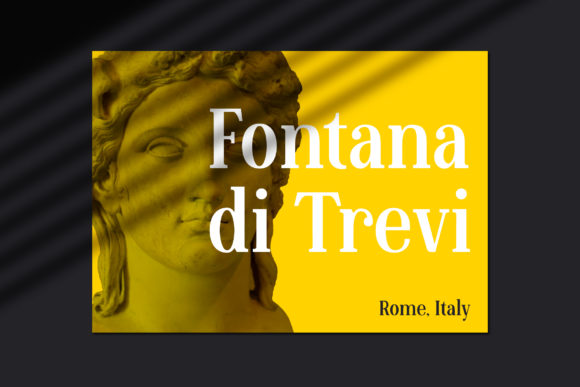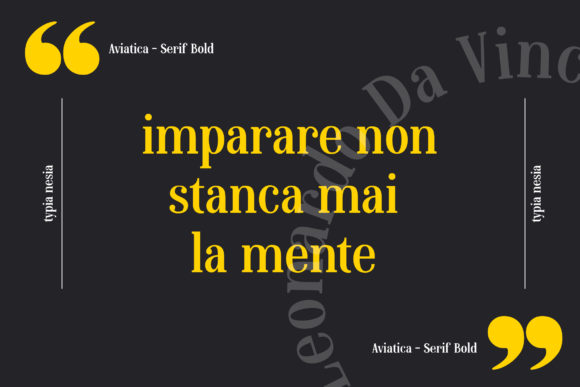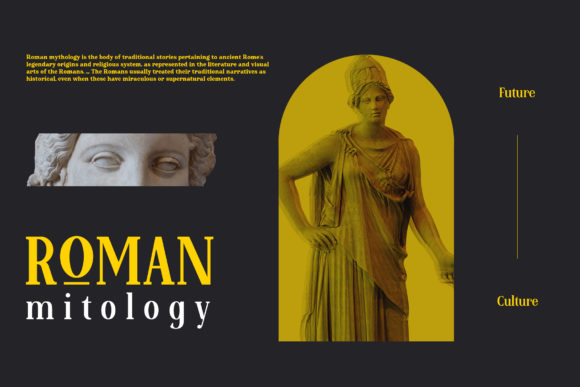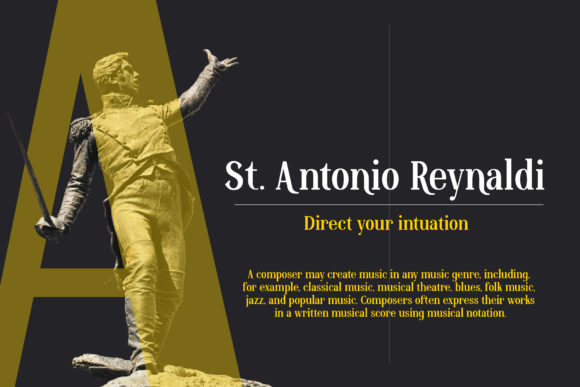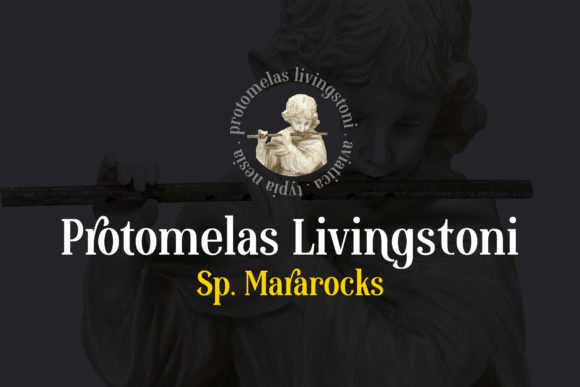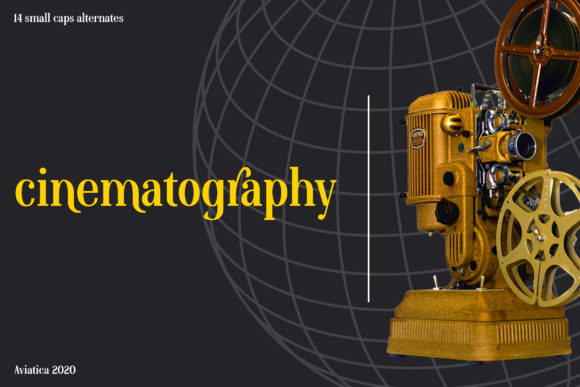
Aviatica Font: Elevate Your Designs with a Bold and Simple Lettered Serif
Are you tired of using the same old fonts in your designs? Look no further than Aviatica, a bold and simple lettered serif font that’s sure to make your creative projects stand out. With its versatility and wide range of applications, Aviatica is the perfect addition to any designer’s toolkit.
What is Aviatica Font?
Aviatica is a carefully crafted font that combines the elegance of serif fonts with the boldness of modern typography. Its simple yet distinctive design makes it easy to read and recognize, even at small sizes. Whether you’re working on a logo, poster, or website, Aviatica is the perfect choice for designers who want to make a statement.
Key Features of Aviatica Font
- Bold and Simple Design: Aviatica’s bold and simple design makes it perfect for headlines, titles, and other applications where you want to grab attention.
- Lettered Serif Font: Aviatica’s serif design adds a touch of elegance and sophistication to any project.
- Highly Versatile: Aviatica can be used in a wide range of projects, from logos and posters to websites and magazines.
- Easily Readable: Despite its bold design, Aviatica is easy to read and understand, even at small sizes.
How to Use Aviatica Font in Your Designs
Aviatica is incredibly easy to use and can be applied to a wide range of design projects. Here are a few ideas to get you started:
- Logos and Branding: Use Aviatica to create a bold and memorable logo that stands out from the crowd.
- Posters and Flyers: Aviatica is perfect for creating eye-catching posters and flyers that grab attention.
- Websites and Blogs: Use Aviatica to add a touch of elegance and sophistication to your website or blog.
- Magazines and Newsletters: Aviatica is a great choice for magazine and newsletter headlines, adding a bold and modern touch to your content.
Why Choose Aviatica Font?
With so many fonts to choose from, why should you choose Aviatica? Here are just a few reasons:
- Unique Design: Aviatica’s bold and simple design sets it apart from other fonts, making it perfect for designers who want to stand out.
- Highly Versatile: Aviatica can be used in a wide range of projects, making it a great addition to any designer’s toolkit.
- Easily Readable: Despite its bold design, Aviatica is easy to read and understand, making it perfect for body text and other applications.
In conclusion, Aviatica is a bold and simple lettered serif font that’s perfect for designers who want to elevate their creative projects. With its highly versatile design, ease of use, and unique style, Aviatica is sure to become a staple in any designer’s toolkit. So why wait? Add Aviatica to your font collection today and start creating stunning designs that stand out from the crowd!